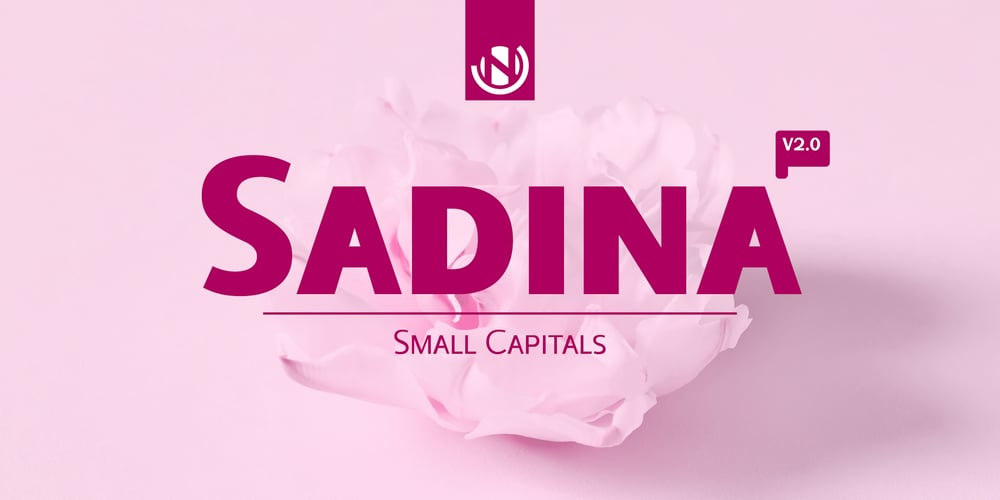
Sadina Small CAPS
Sadina Small CAPS font
Sadina Small CAPS Font Family was designed by Yassine Abdi and published by NumidiaType. Sadina Small CAPS contains 14 styles and family package options. Sadina™ CA is a small caps version of the Sadina™ font family, designed separately to minimize the font incompatibility for applications that cannot support this feature.Generally, some applications support this feature, but not exactly with the right stems. For example, in some apps, all glyphs applied with this feature are scaled only, which makes characters not have the approximative proportional thickness with capital characters.